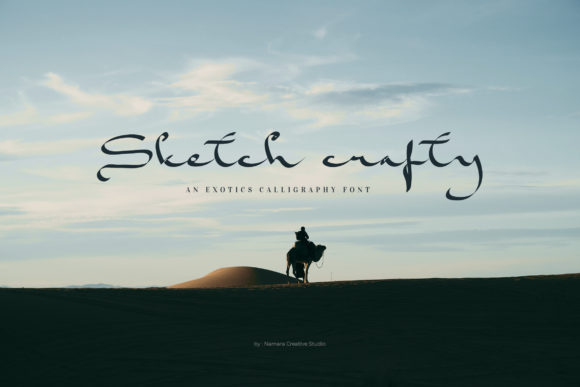
Behold, Skecth Crafty Font, a whimsical and captivating script font that dances across the digital canvas with an air of playfulness and delight. Step into a world where creativity knows no bounds, where every letter is a brushstroke of pure imagination, and words transform into captivating works of art.
Skecth Crafty is the perfect companion for those seeking a touch of magic in their designs. Its playful nature lends itself effortlessly to logos, branding, social media posts, and packaging, adding a dash of whimsy and charm to every project. Let your imagination run wild as you craft stunning wedding invitations, enchanting children's books, or eye-catching posters that radiate joy and creativity.
With Skecth Crafty, you'll embark on a typographic journey where every word carries a story. Its charming imperfections and playful curves exude a sense of authenticity, making it the perfect choice for projects that demand a personal touch. Whether you're a seasoned designer or just starting your creative adventure, Skecth Crafty will be your faithful companion, guiding you through a world of endless possibilities.
Embrace the allure of Skecth Crafty and elevate your designs to new heights of imagination. Let your creativity soar, let your words dance, and let Skecth Crafty be the conductor of your typographic symphony. Unleash the magic within and transform your projects into captivating masterpieces that leave a lasting impression.